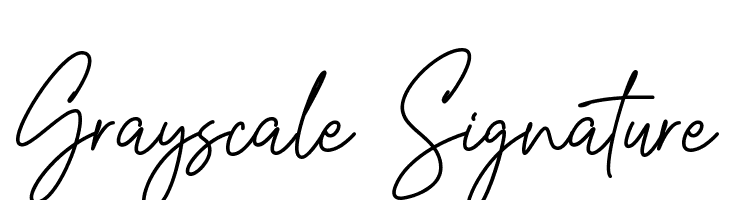
An elegant, flowing script font with delicate, cursive strokes and high contrast.
A dynamic and expressive handwritten font with fluid, cursive letterforms.
A fluid, cursive font with a handwritten signature style.
A modern, cursive font with elegant, flowing characters and medium contrast.
A cursive, handwritten-style font with elegant loops and slender strokes.
A cursive, handwritten-style font with elegant, flowing lines.
A sophisticated, elegant handwritten font with fluid, graceful strokes.
An elegant, flowing script font with a modern, handwritten style.
A modern, elegant handwritten font with fluid strokes and a sophisticated feel.
A bold, expressive script font with a handwritten style.